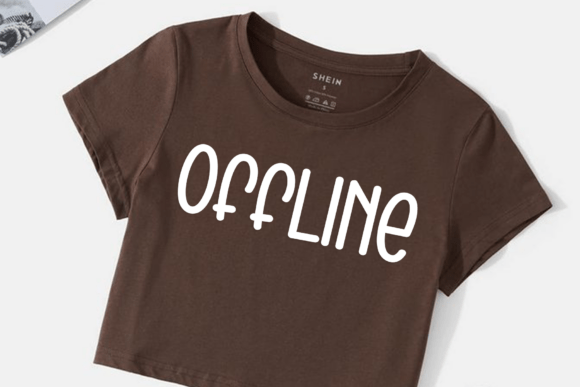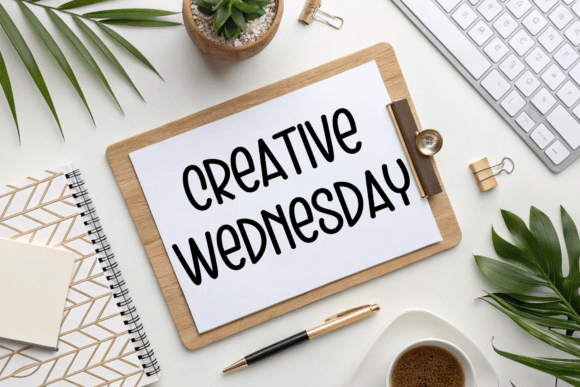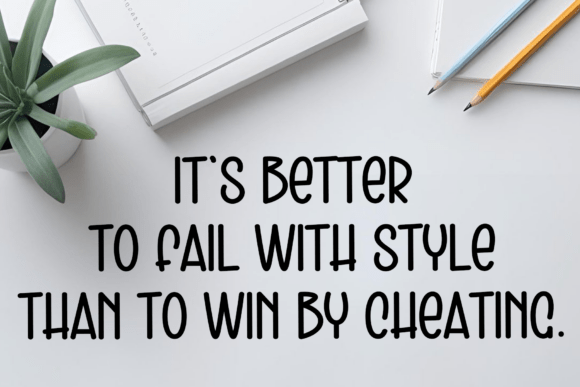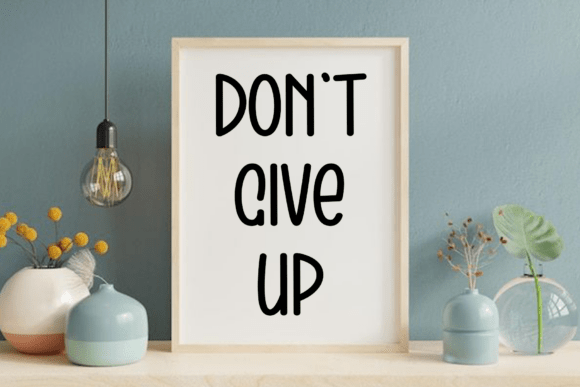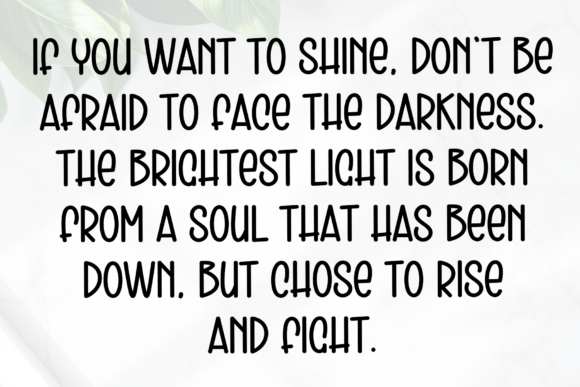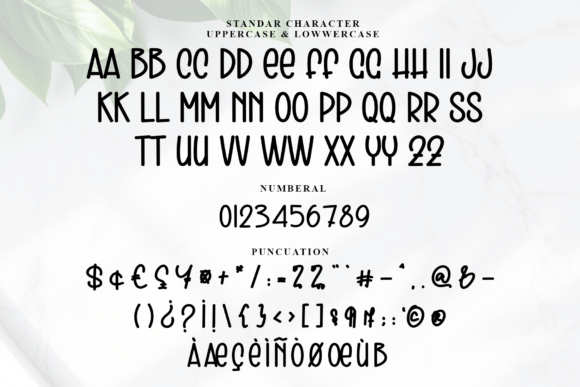
Introduction to Simple Thursday Font Font
Fonts play a crucial role in design, and the Simple Thursday Font font is a typeface that brings both character and versatility to any project. Whether you’re working on a branding project, a website, or a print design, the Simple Thursday Font font offers a unique style that can elevate your work.
Simple Thursday is a tall, friendly font with a charmingly uneven, monoline weight.
Its slightly condensed and clean vertical structure gives it a straightforward, yet approachable, personality This playful and unique font is ideal for childrenβs books, custom stationery, positive social media quotes, casual branding, and any project that needs a strong, clear, and genuinely cheerful handwritten style.
Key Features of Simple Thursday Font Font
Why Choose Simple Thursday Font Font?
The Simple Thursday Font font is more than just a typeface β it’s a design tool that helps you communicate your message with style and clarity. Its unique character set and versatile design make it suitable for a wide range of applications, from elegant invitations to bold headlines.
With its carefully crafted letterforms and balanced proportions, the Simple Thursday Font font ensures readability and visual appeal across all mediums.
What makes Simple Thursday Font font special?
The Simple Thursday Font font stands out with its unique design, exceptional readability, and versatility across various design applications.